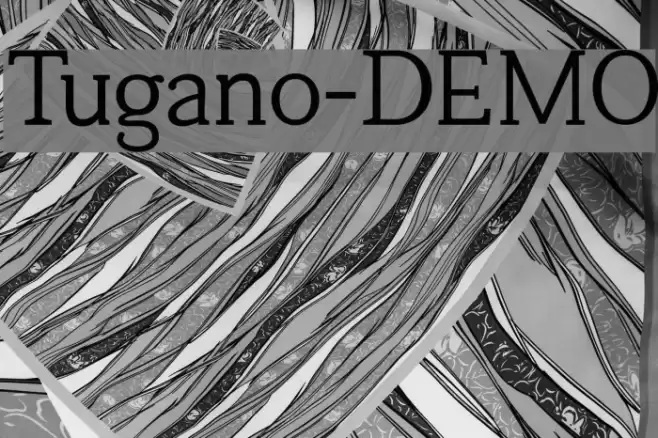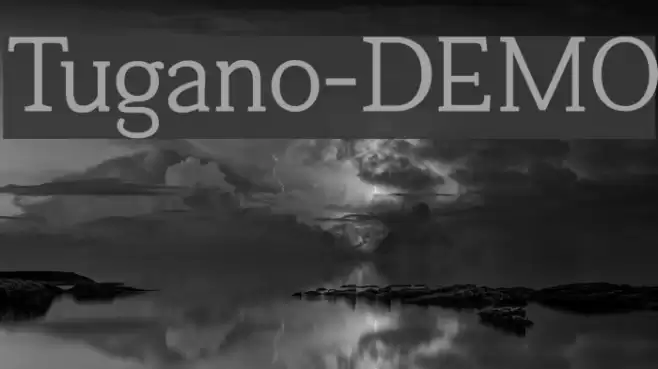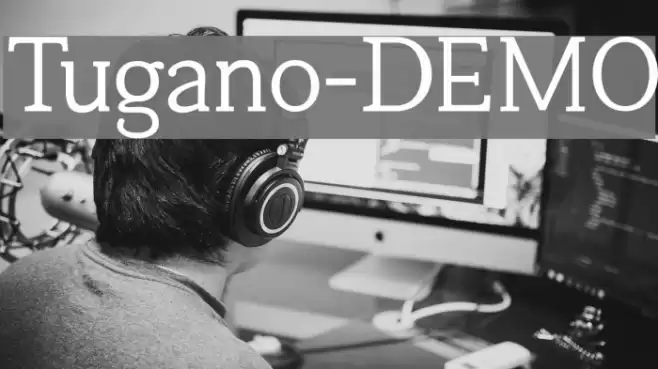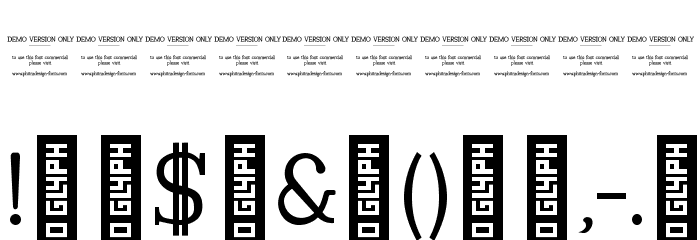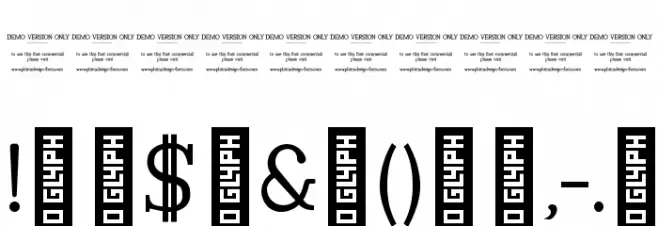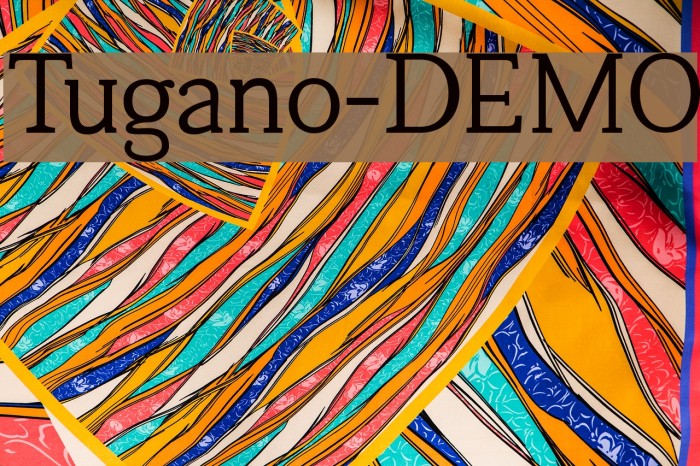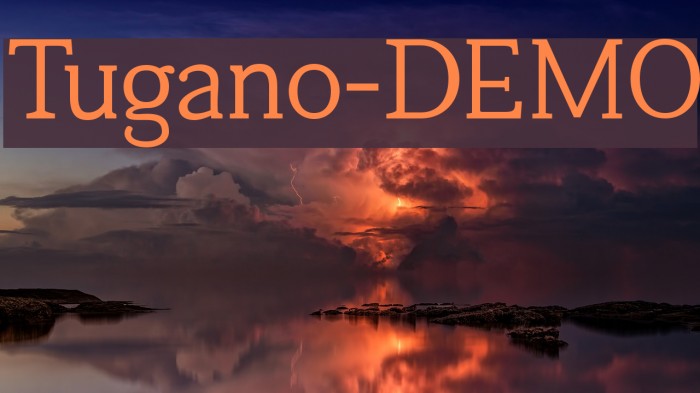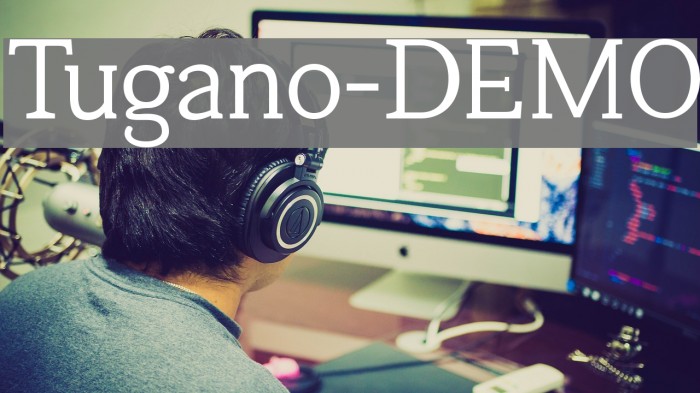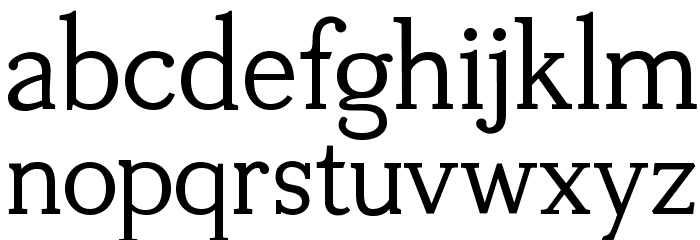
Tugano-DEMO Font
Tugano-DEMO Description
This font exhibits a classic serif style with a modern twist, characterized by its elegant and refined letterforms. The uppercase letters are bold and commanding, while the lowercase letters maintain a graceful and balanced appearance. The numerals are clear and distinct, ensuring readability. Special characters are designed with a consistent style, enhancing the font's versatility. The overall design is sophisticated, making it suitable for a variety of applications where a touch of elegance is desired.
A modern serif font with elegant and refined letterforms from Serif fonts.
- Proposed Projects: Ideal for editorial design, book covers, branding, and formal invitations.
- Overall Style: Classic